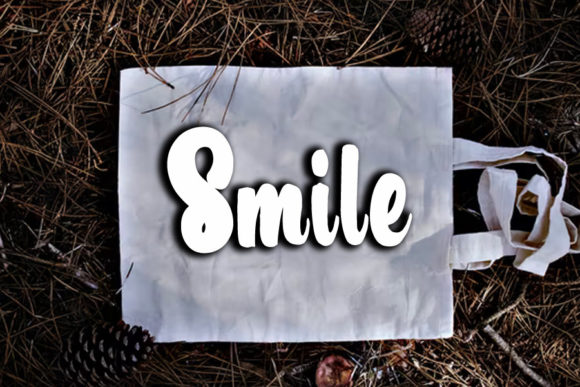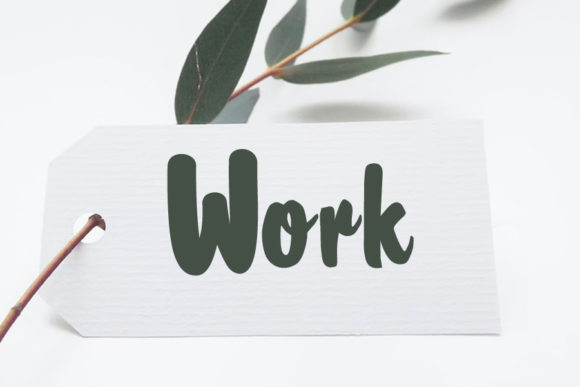
Ontime Font
db-ku.com - Script & Handwritten -- Ontime is a brushed lettered and cursive script font. Fall for its ravishing style and use it to create gorgeous wedding invitations, beautiful stationary art, eye-catching social media posts, and much more!